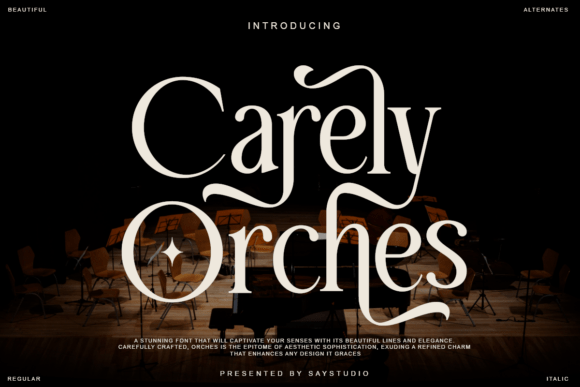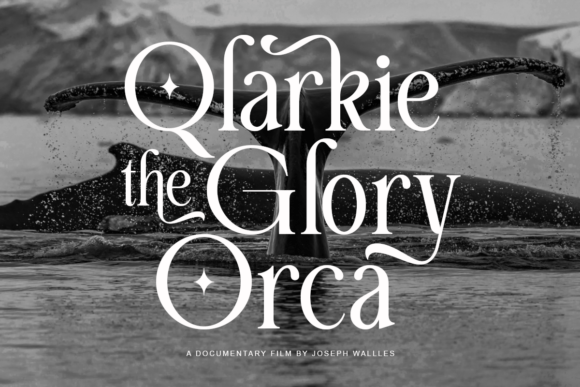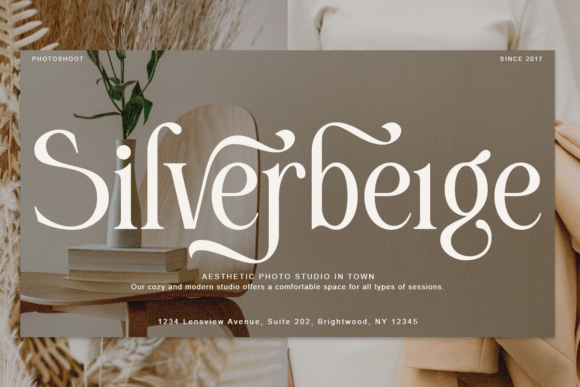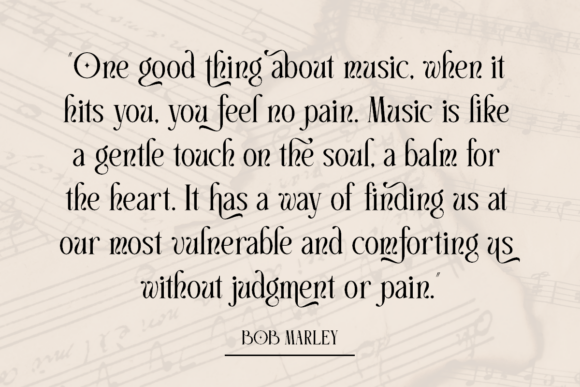
Carely Orches Font
About the Carely Orches Font
Experience the unique personality of Carely Orches Font, a font designed for impact. Carely Orhes is a classy display serif with a lot of style. Perfect for fashion work, magazines, or just classy logo designs. Open up your glyphs panel and explore all the characters!
Carely Orches Font Usage Examples
Carely Orches Font Example